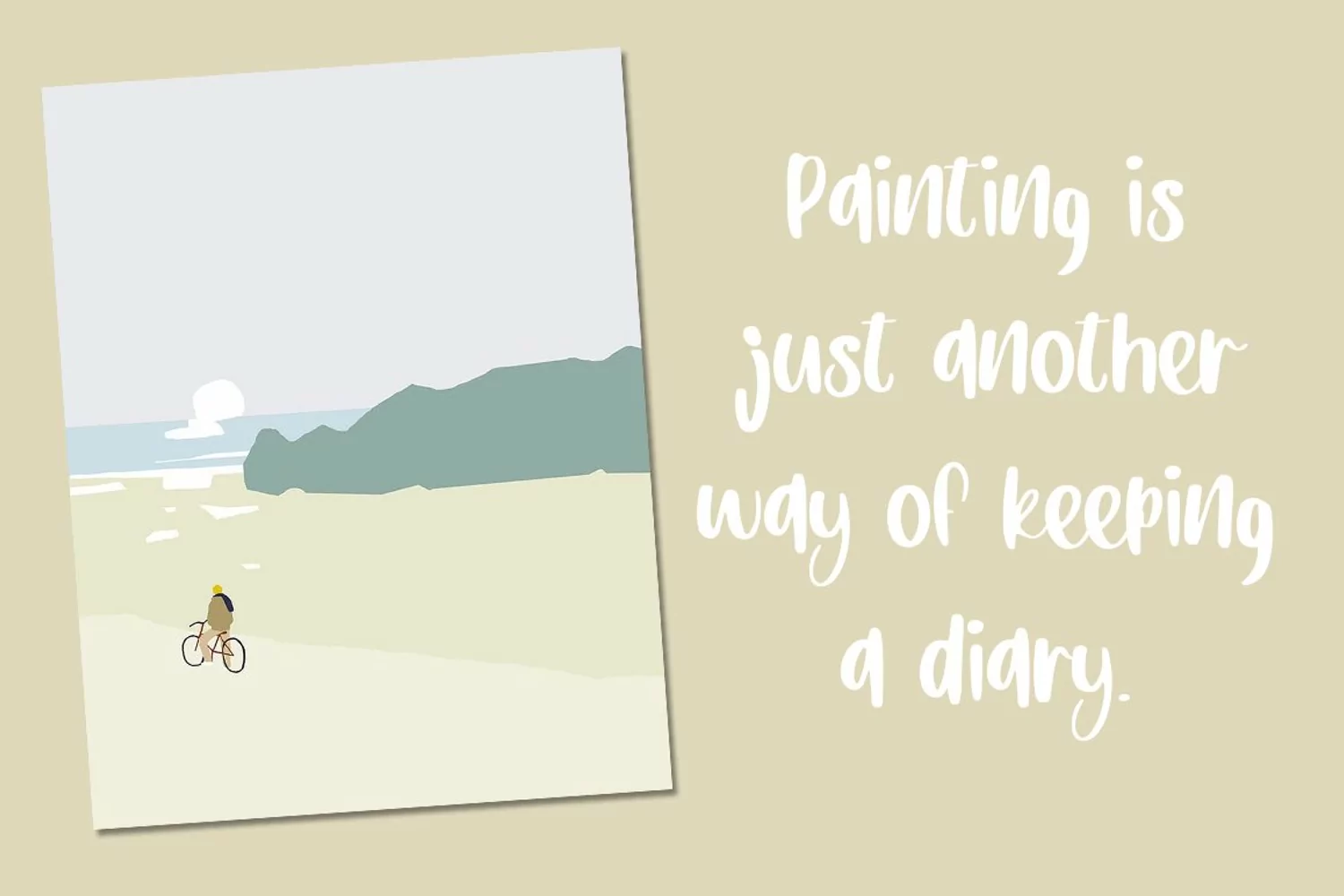
**Bionocle** - a new fresh handmade calligraphy font.
--- Very suitable for greeting cards, branding materials, business cards, quotes, posters, and more!This font are perfect for wedding postcard. Or you can create perfect and unique design of your logo, blog, stationery, marketing, magazines and more :)
- UpperCase & Lowercase
- Numerals & Punctuations
- Multilingualcharacters(AÀÁÂÃÄÅCÇDÐEÈÉÊËIÌÍÎÏNÑOØÒÓÔÕÖUÙÜÚÛWYÝŸŸ ÆŒßÞàáâãäåæçèéêëìíîïðñòóôõöøùúûüýÿ)